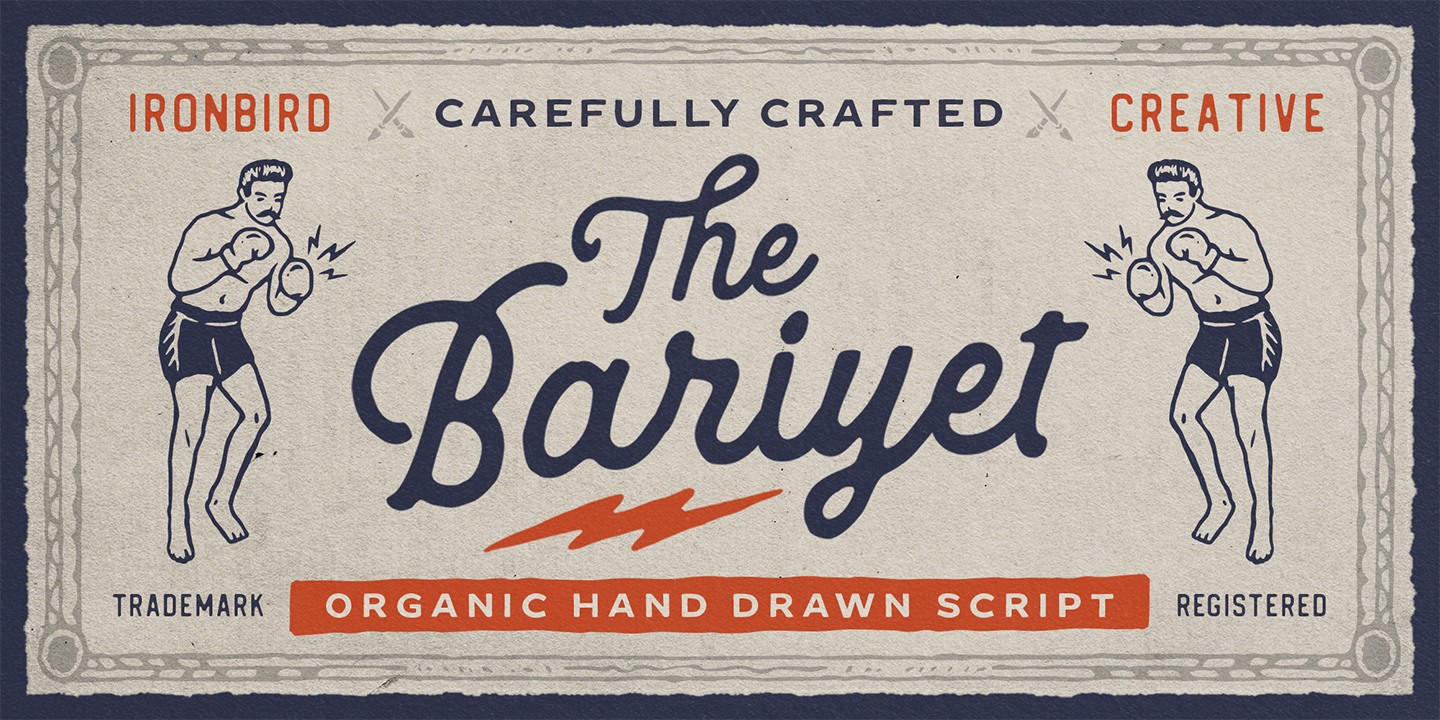
Bariyet Font is ideal for contemporary art galleries, modern design studios, avant-garde fashion brands, cutting-edge tech startups, progressive architectural firms, innovative product launches, artistic exhibition catalogs, experimental music venues, creative agency portfolios, and forward-thinking projects that demand distinctive artistic expression and unconventional aesthetic appeal with bold creative vision.
What makes Bariyet Font so exciting is its fearless exploration of typographic boundaries through innovative letterforms that challenge conventional design expectations while maintaining sophisticated artistic integrity. This typeface embodies creative rebellion and artistic innovation, featuring unique character constructions and unexpected design elements that suggest contemporary art installations while ensuring excellent readability for modern applications requiring both creativity and functionality.
Bariyet Font family encompasses multiple artistic variations: Regular, Bold, Light, Experimental, Abstract, Creative, Modern, and Avant-garde versions. Each style maintains the font's inherent artistic character while offering different levels of creative expression and design innovation, providing designers with comprehensive tools for creating authentic contemporary aesthetics that resonate with audiences seeking cutting-edge artistic experiences and progressive design solutions.
The innovative appeal of Bariyet Font Free Download makes it exceptionally valuable for creative industries and artistic communities pushing design boundaries. This font successfully communicates artistic vision and creative sophistication, making it perfect for brands that want to establish themselves as leaders in contemporary design and attract audiences who appreciate innovative artistic expression. Its distinctive character works beautifully across both digital art platforms and high-quality creative print materials, while its unique aesthetic creates immediate recognition among audiences who value artistic innovation and progressive design thinking.